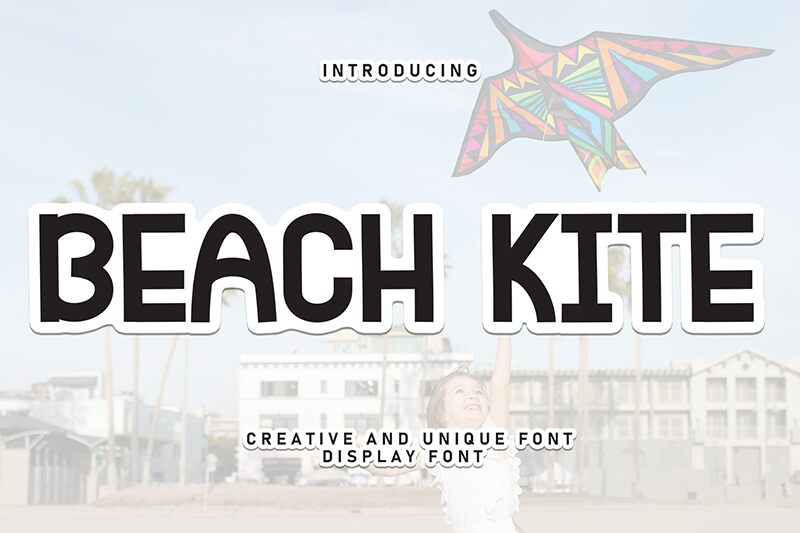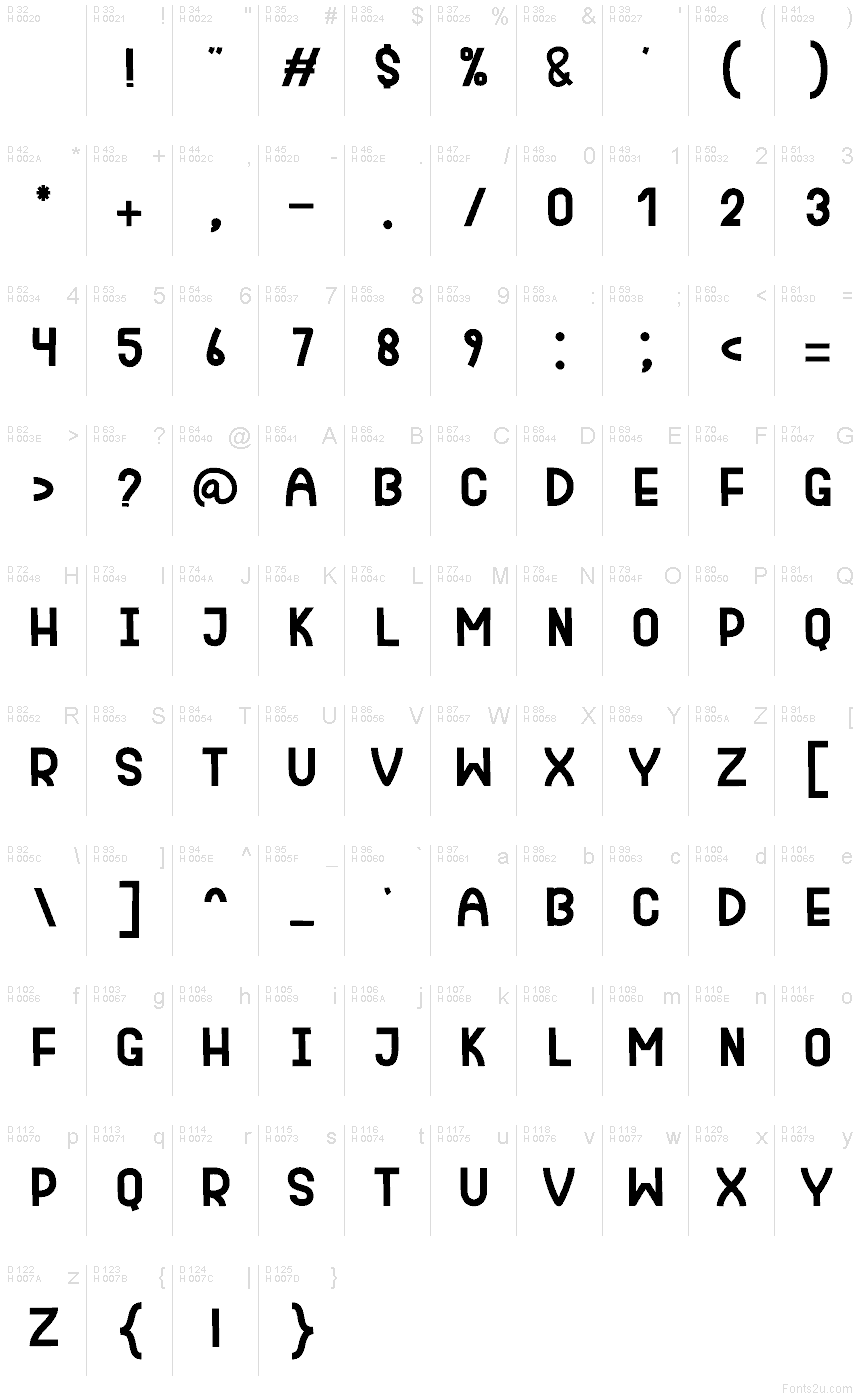
Beach Kite
Beach Kite font by Andi Moz is a free display font with an expressive retro vibe and geometric influence. It boasts a casual aesthetic, making it suitable for headlines that require an impactful presence.
The font is multi-use and will work seamlessly in magazine covers, titles, applications in fashion design, posters, invitations, event cards, packaging design, badges, logos, or even on tattoos.